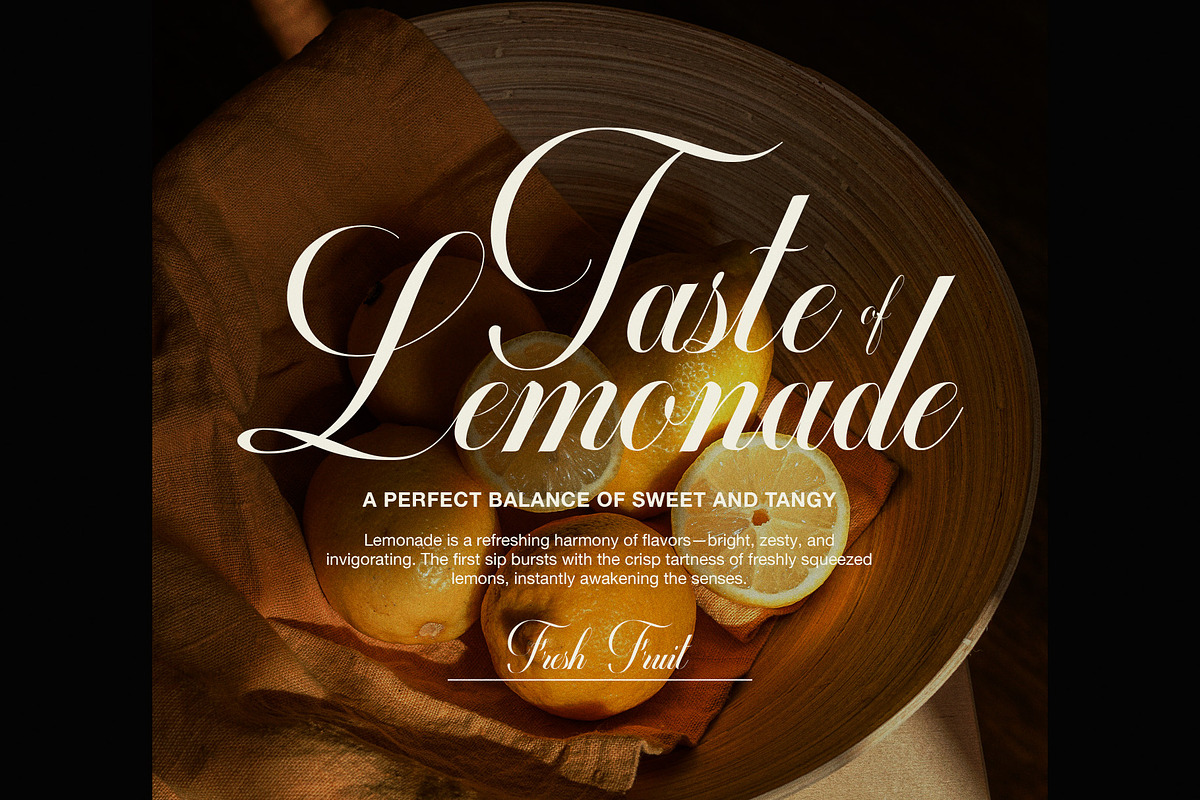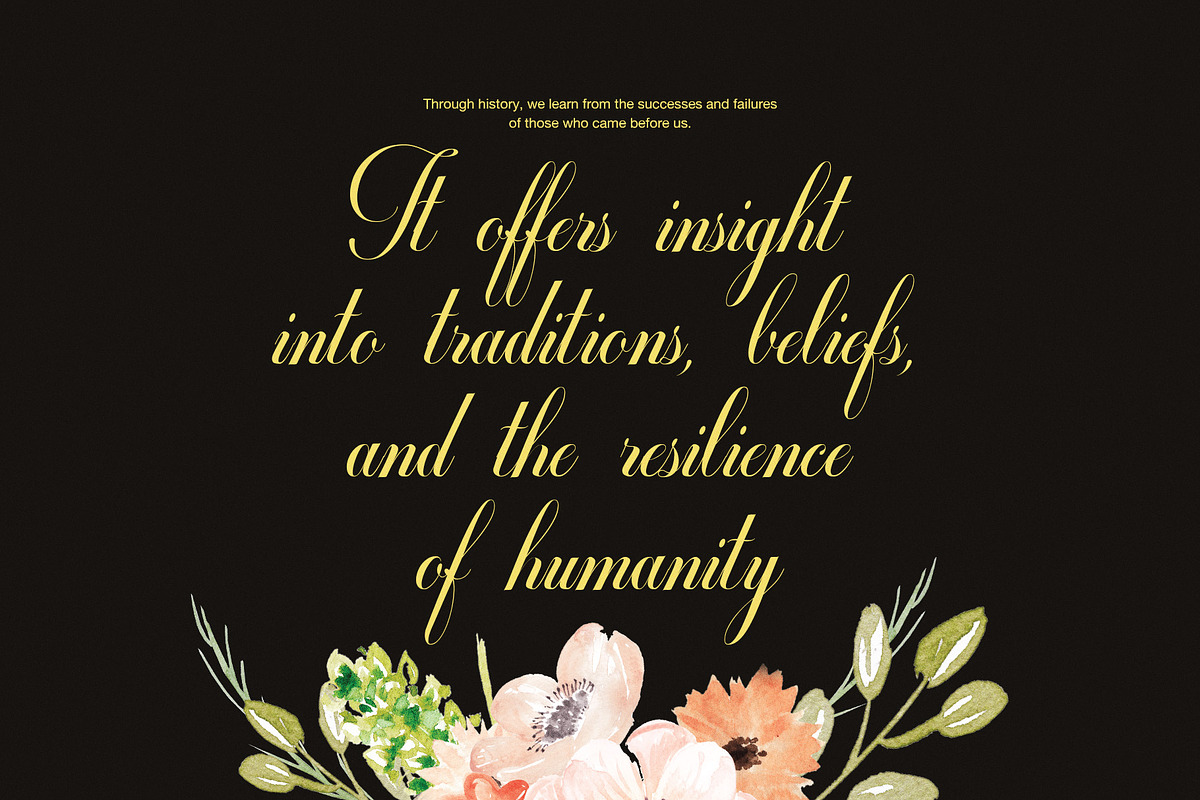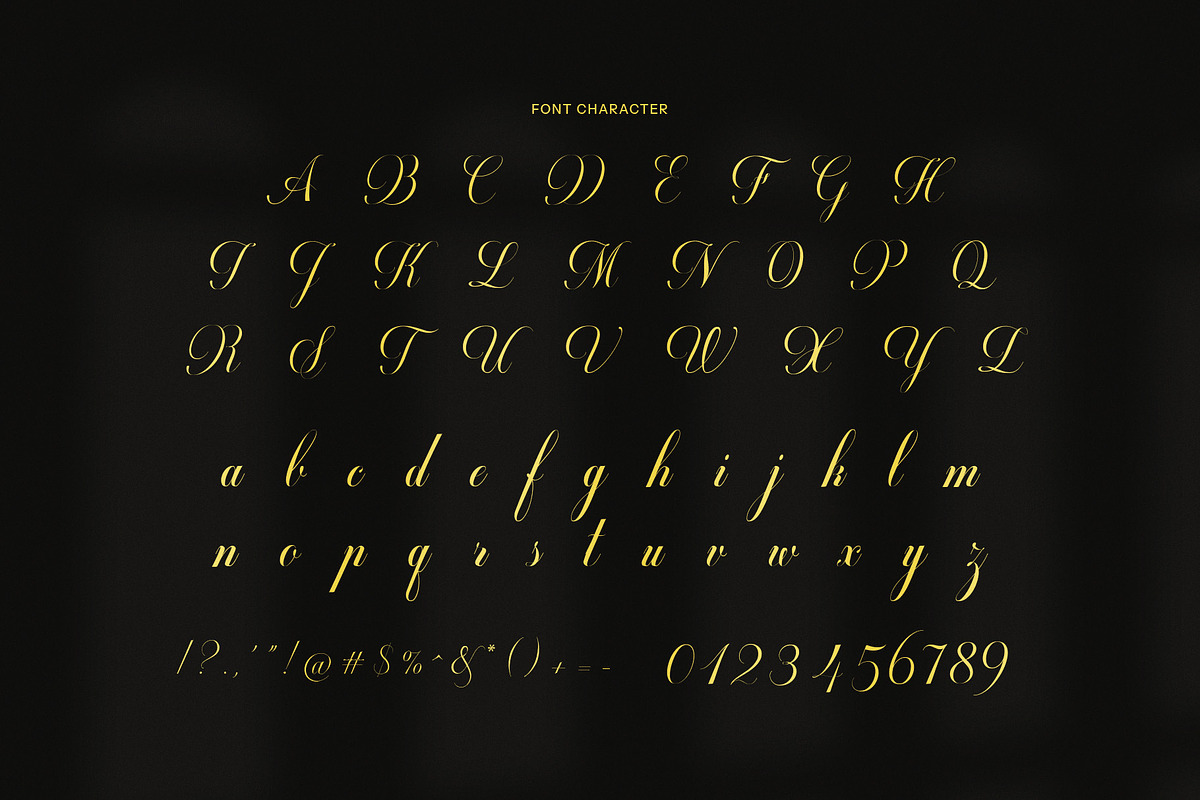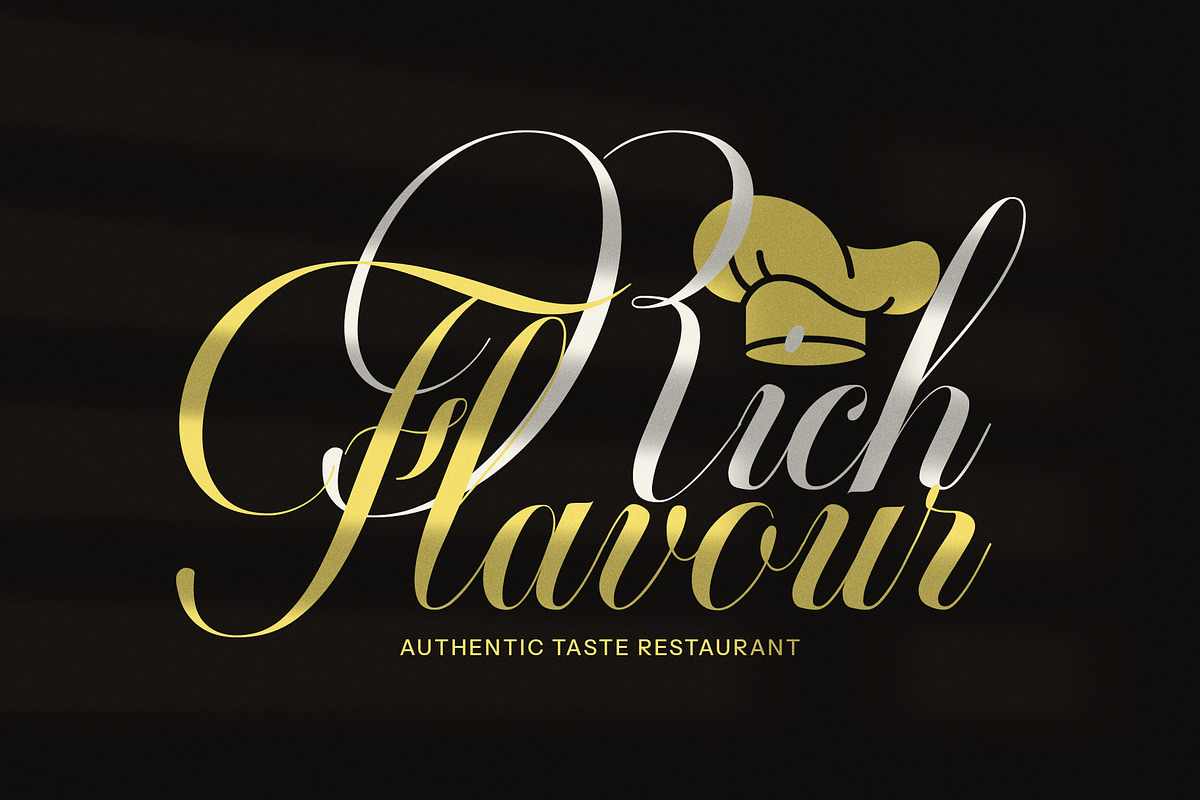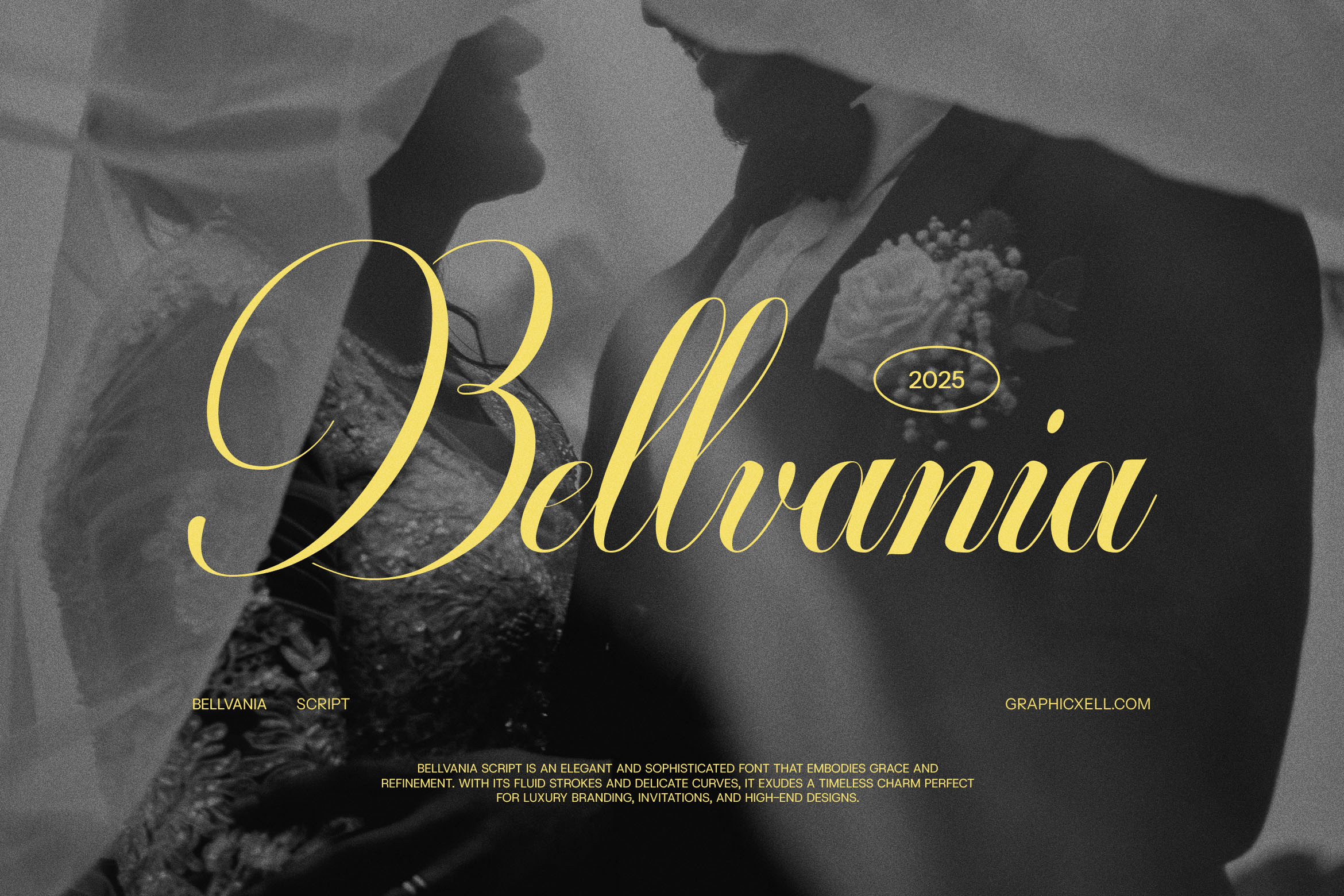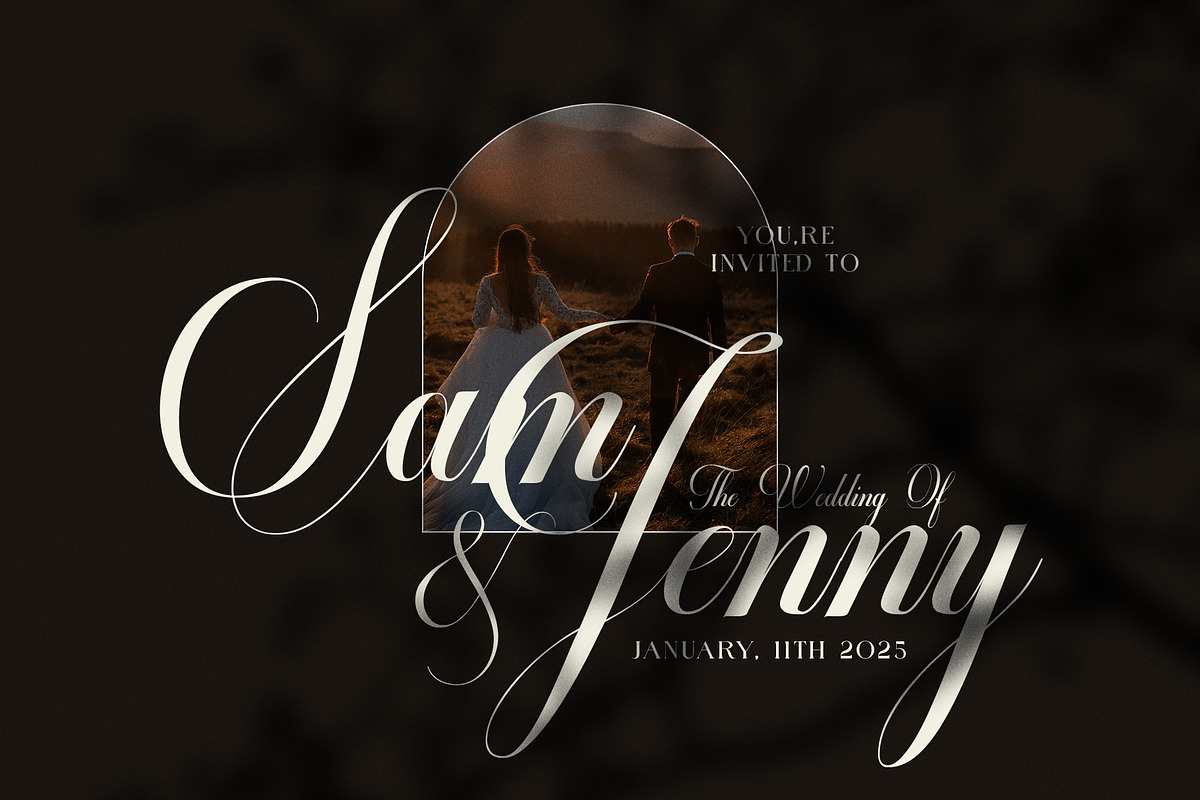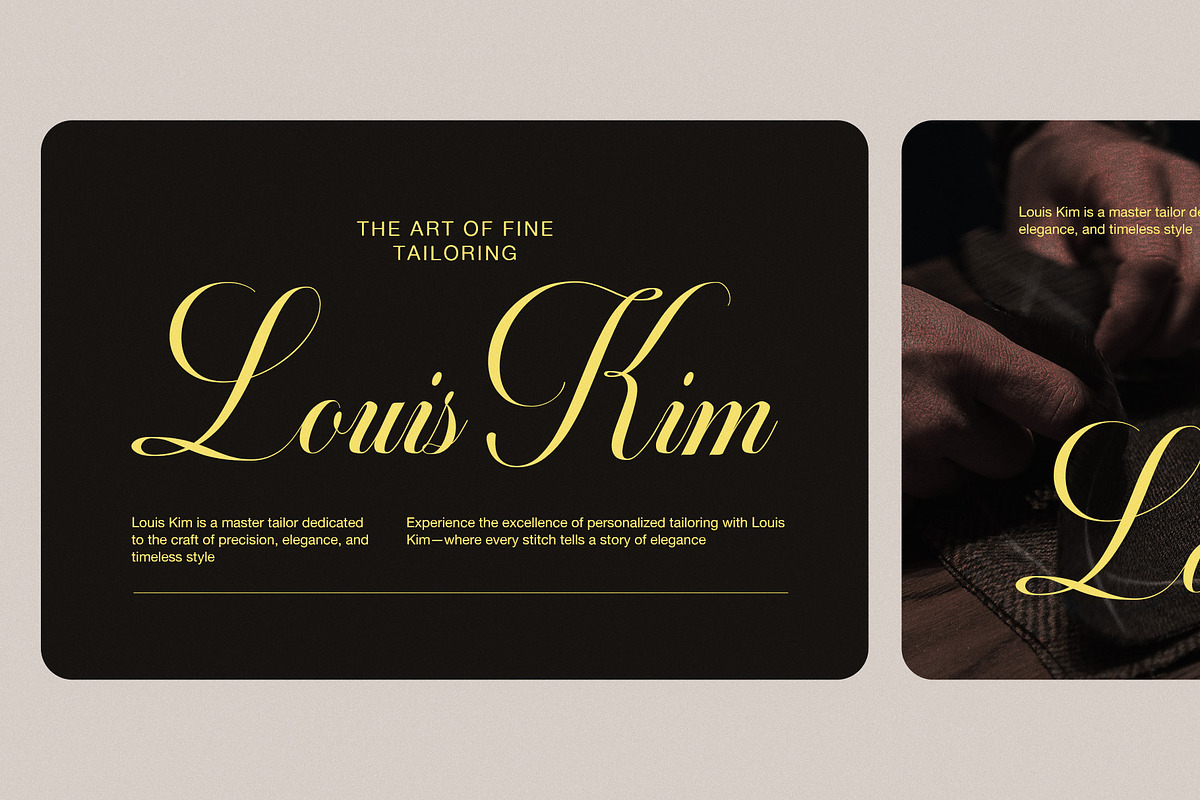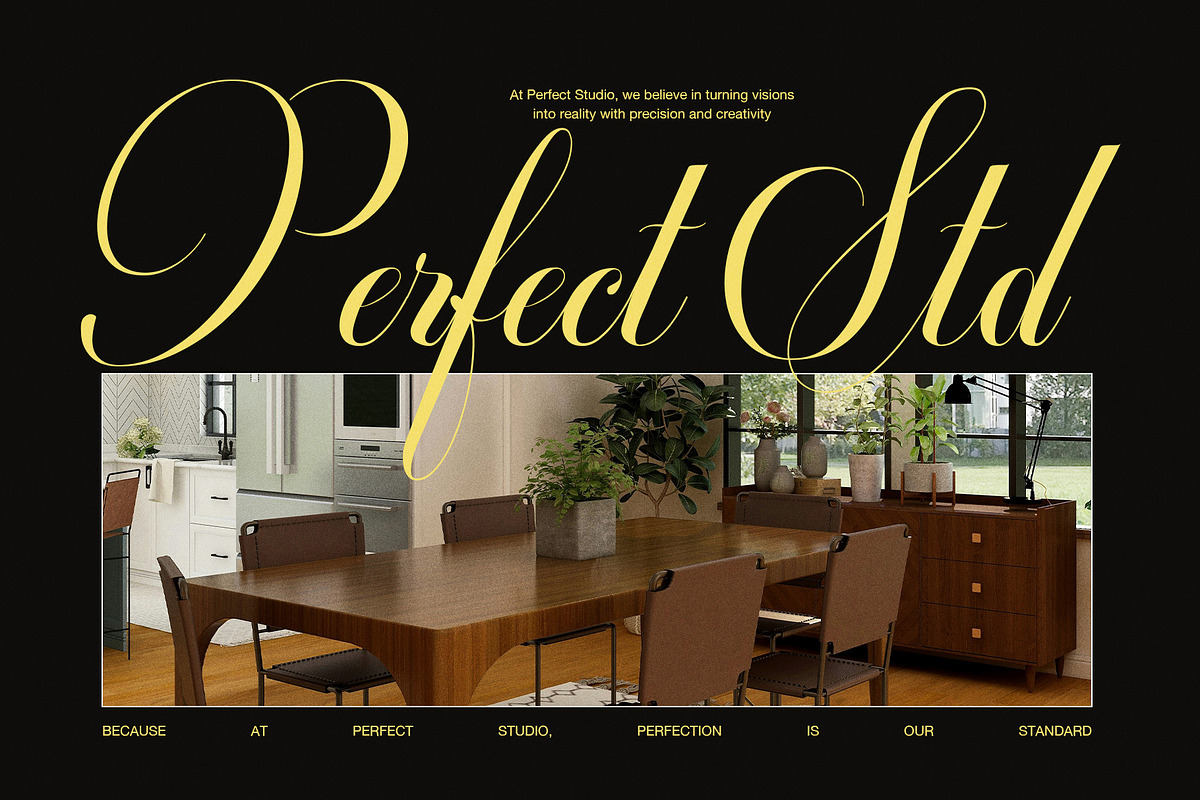
Bellvania Calligraphy Script Font
Bellvania Calligraphy Script Font is a refined and sophisticated typeface that captures the essence of timeless elegance. With its graceful curves, delicate strokes, and exquisite alternates, this font brings a luxurious and artistic touch to any design. Perfectly balanced between classic calligraphy and modern script, Bellvania adds a sense of romance and charm to your creative projects.
This font is designed to elevate branding, logos, and high-end packaging with its flowing, hand-drawn aesthetic. Whether you are crafting wedding invitations, designing stylish business cards, or creating an elegant website, Bellvania ensures a polished and captivating visual appeal. Its meticulously designed letterforms and versatile ligatures allow for seamless connections, making every word feel effortlessly beautiful.
Ideal for wedding stationery, album covers, editorial layouts, posters, and stylish social media content, Bellvania blends sophistication with creativity. The font’s ornate details and fluid motion make it a standout choice for those looking to infuse their designs with an air of exclusivity and finesse.
Created for designers, artists, and creatives who appreciate the beauty of handwritten script, Bellvania Calligraphy Script Font is a must-have addition to your collection. Its versatility in both digital and print media ensures that your designs will exude elegance and class.
Let your creativity flourish with Bellvania – a calligraphy script that transforms every project into a work of art.